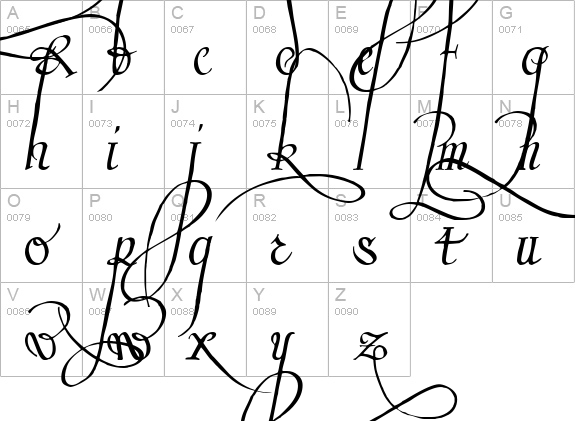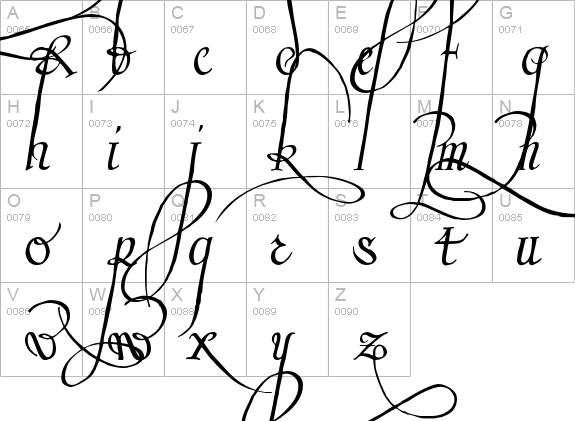
Trinculo Font Details
Trinculo font is a stunning typeface that effortlessly combines elegance with a touch of playfulness. Its unique design features clean lines and charming curves, making it perfect for a wide range of creative projects. This versatile font is ideal for both professional and personal use. Whether you're designing a logo, creating eye-catching headlines, or crafting beautiful invitations, Trinculo will surely make a lasting impression. One of the best things about Trinculo font is that it is free. Yes, you read that right! This incredible font is freely available to download at FontsMarket.com. You can enhance your designs without having to worry about any additional costs. Trinculo font offers a wide range of characters, including uppercase and lowercase letters, numbers, punctuation marks, and special symbols. Its extensive character set ensures that you have everything you need to bring your creative vision to life. The smooth and consistent spacing of Trinculo font ensures optimum legibility, even at smaller sizes. This makes it a great choice for body text, ensuring that your readers can easily consume your content without any strain. With its elegant yet playful design, Trinculo font adds a touch of sophistication to any project. Its versatility and free availability make it a must-have for designers, artists, and anyone looking to add a touch of creativity to their work. Download Trinculo font today from FontsMarket.com and unleash your creativity with this beautiful and freely available typeface.